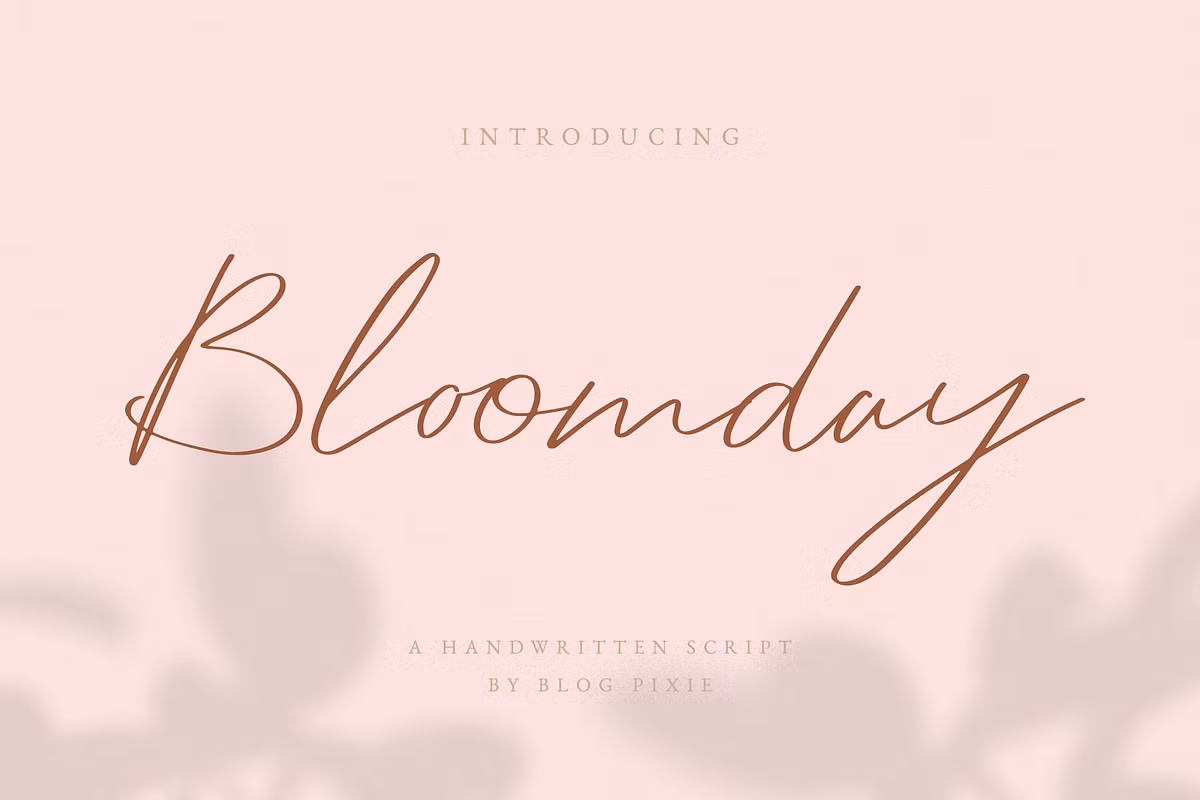
Bloomday Script Font Free Download is a charming, hand-lettered typeface that captures the essence of elegance and playful expression. Please note: you must purchase this font for commercial use, but you can test it through a free download. With its flowing strokes, stylish swashes, and natural handwritten feel, Bloomday is perfect for wedding invitations, feminine branding, greeting cards, logos, and lifestyle blogs.
This script font brings a soft, romantic touch to any design—ideal for projects that need to feel warm, personal, and beautifully crafted. Whether you’re designing for a boutique brand or a heartfelt message, Bloomday Script Font Free Download adds a lovely handwritten character to your work. Fully compatible with Adobe Illustrator, Photoshop, Canva, and more, it’s easy to use across all platforms. Download it today for personal use and make your designs blossom with the graceful charm of Bloomday.